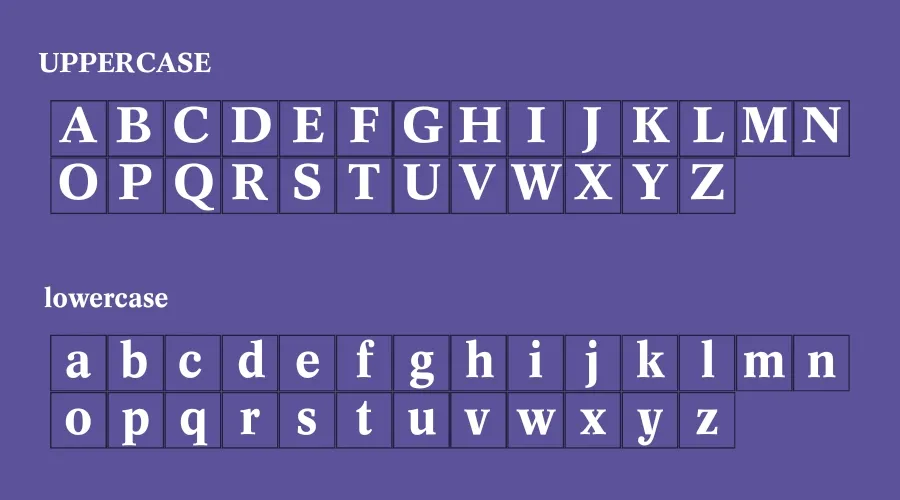
Concorde Font
About Concorde Font
The Concorde Font was designed by Günter Gerhard Lange for the purpose to meet the demands of nowadays printing and composing technology. It was published by Berthold in 1969. This font is under the category of the serif typeface family and has a neat and good-looking texture look appearance.
The Concorde font has 5 font families and consists of 175 unique styles with 252 adorable characters such as uppercase letters, lowercase letters, integers, symbols, signs, marks, punctuations, digits, and many more.  You can compare it with different other fonts and make outstanding projects.
Due to its modern and contemporary texture impression, you may utilize it for numerous kinds of purposes. It is a versatile font that may be utilized for a variety of goals. If you are looking for a trendy font for headlines or lengthy paragraphs so it is the perfect choice for your projects.
In addition, It supports different types of international languages and is suitable for card designs, advertisements, cloth printings, newspapers, magazines, and much more purposes.
Designer Günter Gerhard Lange
Style Serif
• Concorde Regular
It has a graceful and unique texture look. It was designed by Günter Gerhard Lange for the purpose to meet the demands of nowadays printing and composing technology. It was published by Berthold in 1969.
It is a contemporary style and is very flexible, which means that you can utilize it in many various ways. It works well for invitation cards, birthday, and Christmas cards.